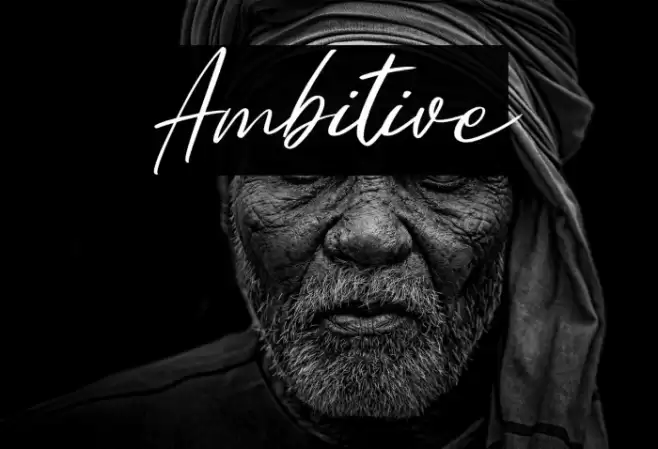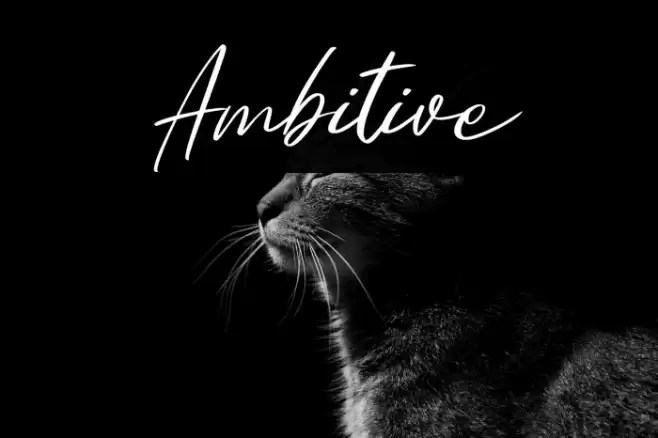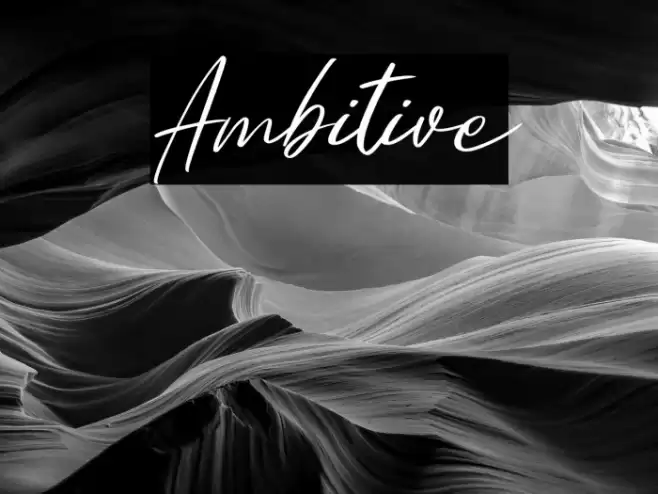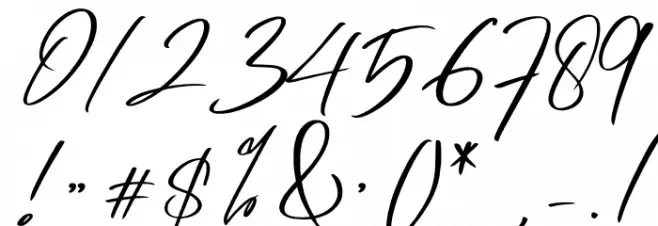
Ambitive Font
Ambitive Description
This font exudes a dynamic and energetic vibe with its fluid, cursive style. The letters are crafted with a natural flow, reminiscent of elegant handwriting. The uppercase characters are bold and sweeping, while the lowercase letters maintain a consistent rhythm, adding to the overall harmony of the design. The numerals are distinct yet cohesive with the alphabet, ensuring readability. Special characters are thoughtfully integrated, maintaining the font's artistic flair. This font is perfect for projects that require a personal touch, combining sophistication with a modern twist.
A dynamic cursive font with a fluid, elegant style from Uncategorized fonts.
- Proposed Projects: Ideal for wedding invitations, branding, logos, and social media graphics.
- Use Case: Logos, Invitations, Social Media